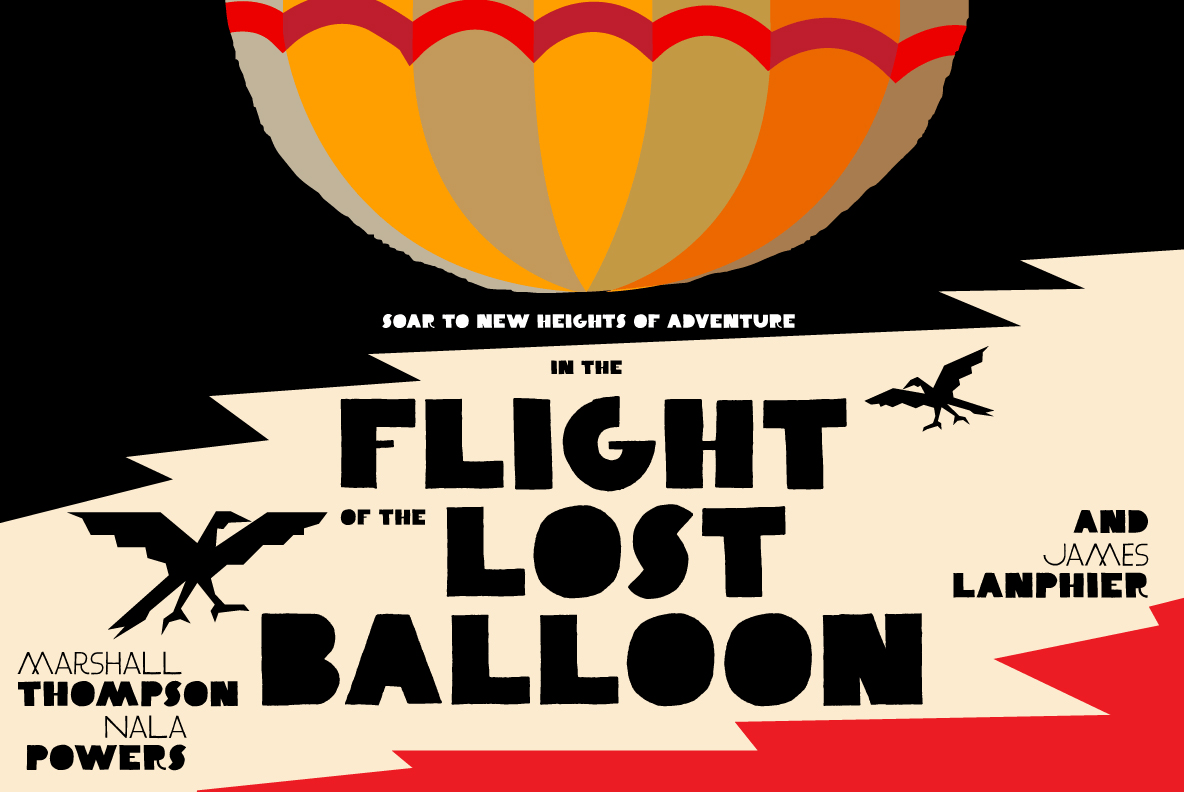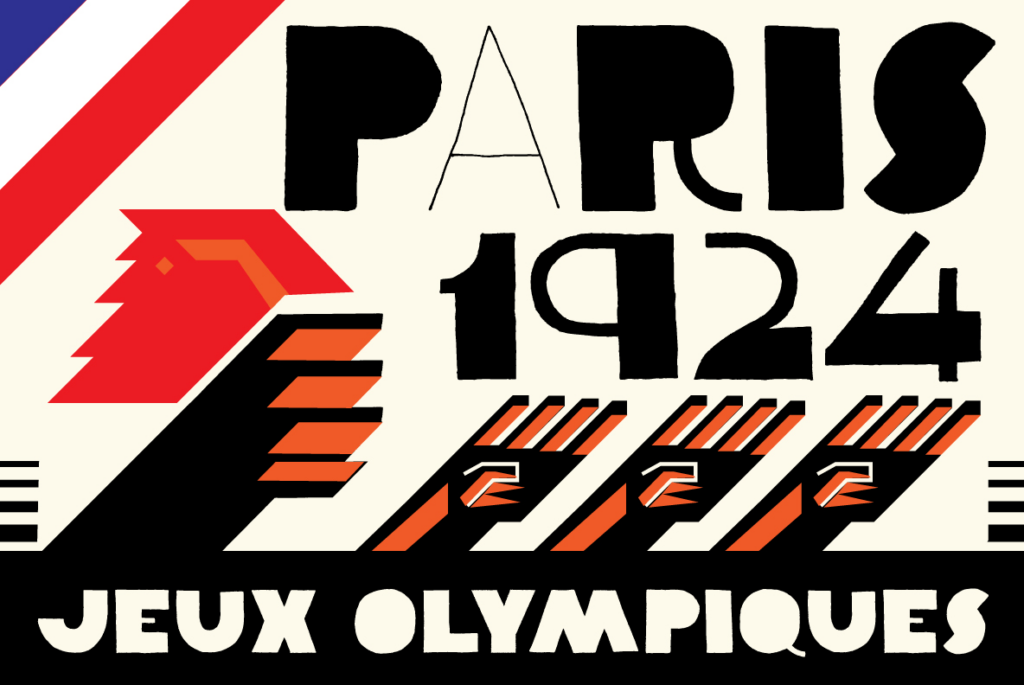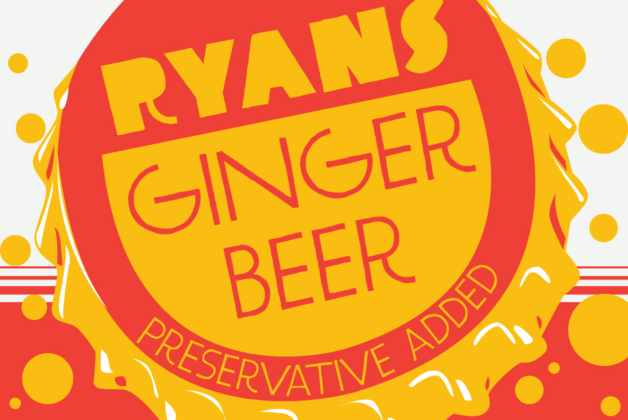
About YWFT Clairemy
The smell of ink is redolent in the air, as the resistance printers screen propaganda deep in a basement in the French Quarter. The Absinthe is flowing, and there\’s static on the radio, as YWFT Clairemy makes its proud and vibrant presence known. Hand-drawn…